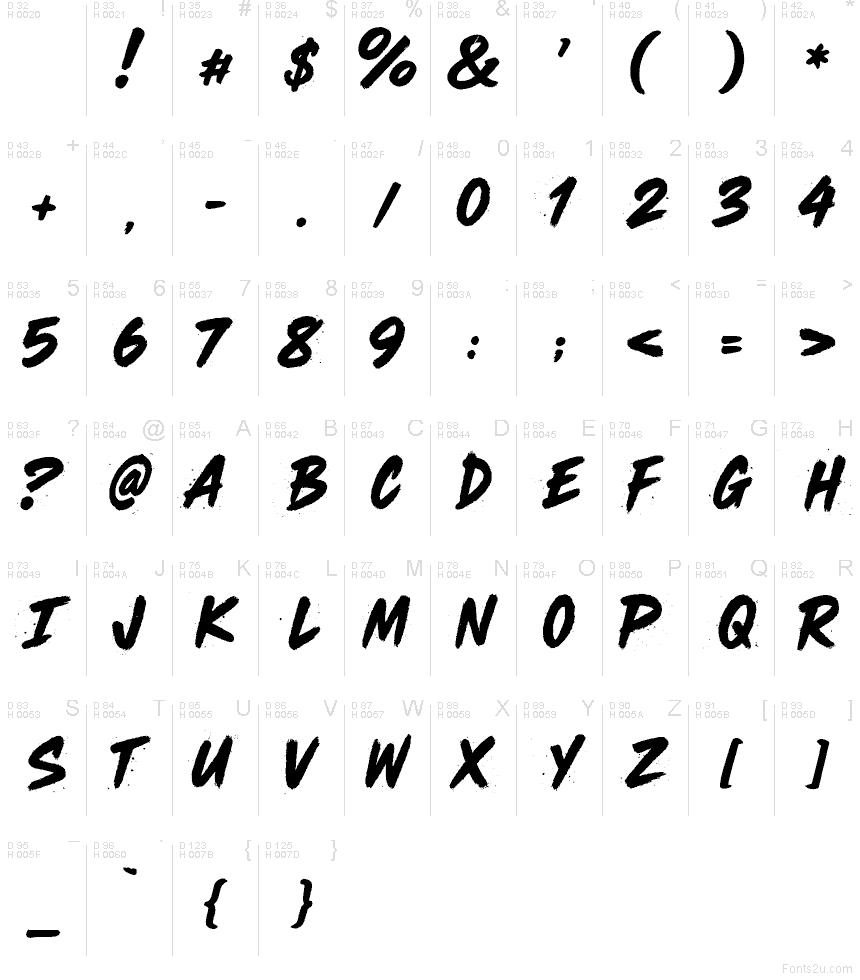
URBAN SPRAY
Urban spray font by BlackFridayFont FMF is a free graffiti font that captures the rush of fresh paint on concrete. Its bold, slanted strokes feel hand-sprayed and slightly gritty, with rough edges that mimic real nozzle splatter and quick, confident tags. Letters lock together with a fast, forward motion, giving your words that raw, street-level energy without losing legibility.
Using Urban spray, this free font shines on poster headlines, album covers, streetwear branding, event flyers, YouTube thumbnails, and skateboard or sticker graphics. It works beautifully at large sizes where the inky texture and motion can really breathe. Pair Urban spray with a clean, neutral sans serif for body copy to let its rebellious attitude stay in the spotlight.